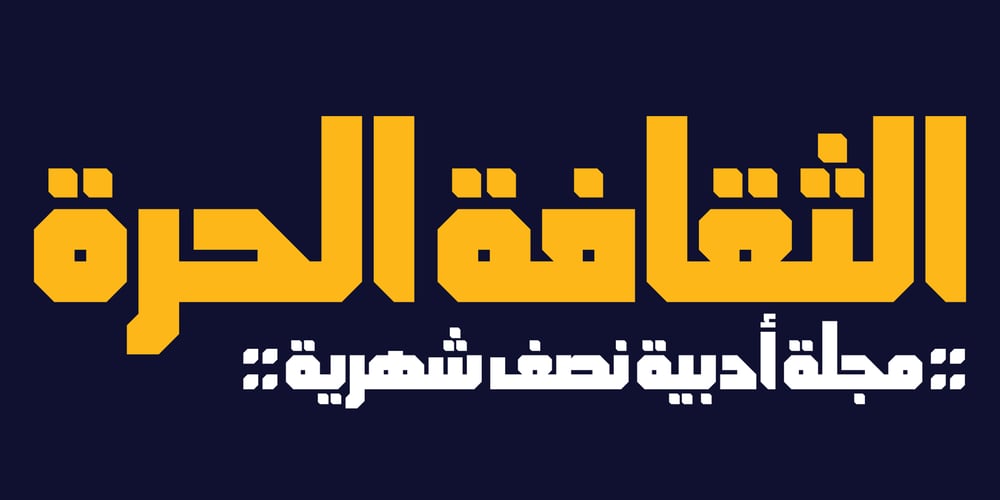
HS Albadr Font Family was designed by Hasan Abu Afash and published by Hiba Studio. HS Albadr contains 1 styles and family package options. HS Albadr is a sophisticated Arabic display typeface, perfect for book titles and graphic projects where a contemporary, geometrical, and streamlined aesthetic is desired. This font is inspired by the clean lines of modern and simplified Kufi calligraphy and supports Arabic, Persian, and Urdu scripts. It features a single weight that mirrors a bold style, providing a strong and impactful presence. Designed specifically for technical and engineering companies, HS Albadr adheres to strict geometric principles. It boasts uniform and equal dimensions in both vertical and horizontal strokes, with select portions of the letters cut at a precise 45-degree angle. This design choice enhances the font’s cohesive and geometrical appearance, making it ideal for professional and technical applications. As part of a series of geometric fonts created for engineering firms, HS Albadr follows the legacy of HS Almohandis and HS Alhandasi. This typeface aims to contribute significantly to the field of geometric typefaces, offering a unique blend of precision and modernity.